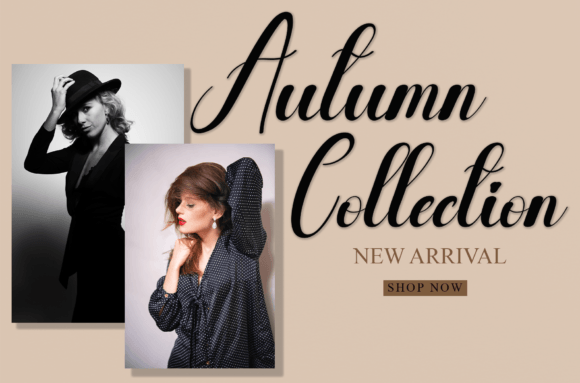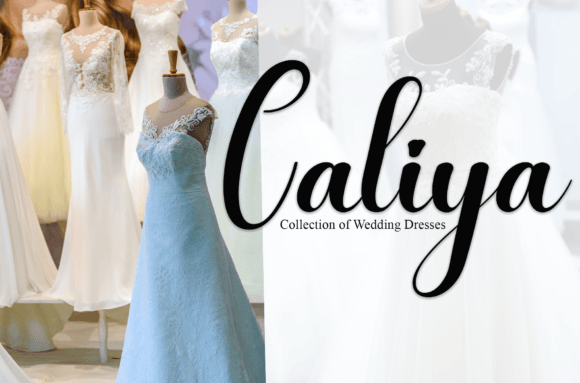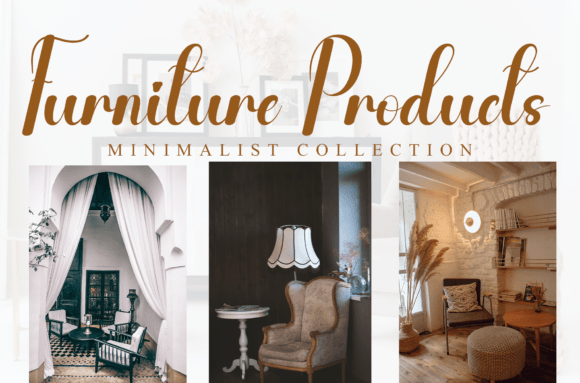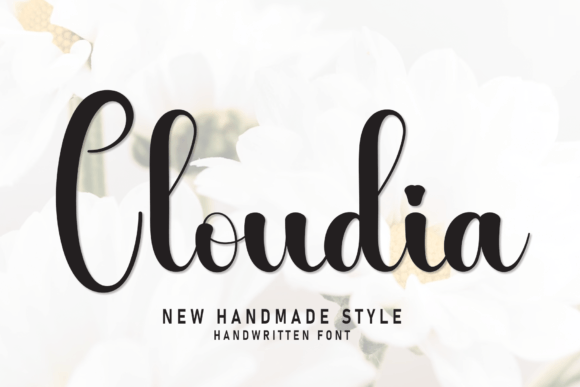
Introduction to Cloudia Font
Cloudia is a sweet and friendly handwritten font.
Fresh and neat, this font is ideal for writing wedding invitations, cards, or any other design that might need a fun touch .
Key Features of Cloudia Font
Why Choose Cloudia Font?